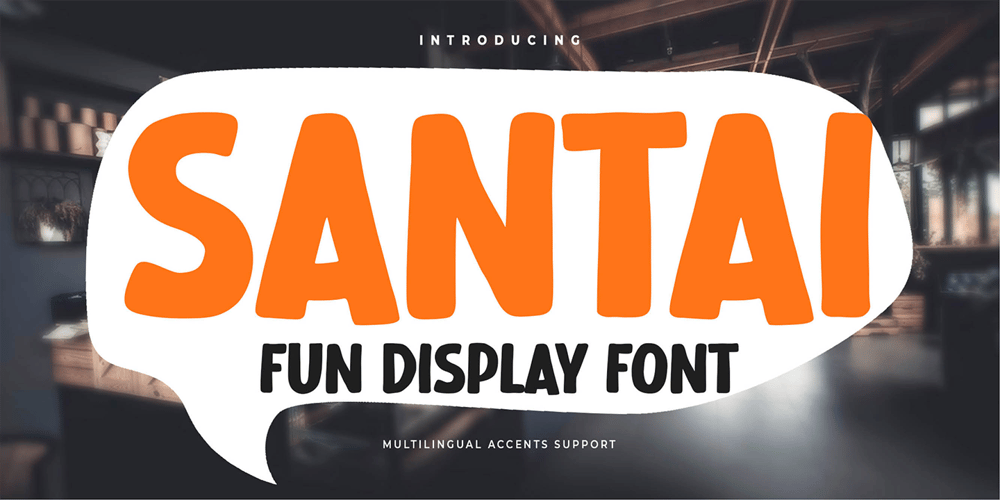
Santai
Santai font
Santai Font Family was designed by Abdul Malik Wisnu, Anang Fibriyanto and published by Gassstype. Santai contains 1 styles and family package options. Hello Everyone, introduce our new product Font SANTAI is a Fun Display Font .This is a Textured Natural Style and classy style with a clear style and dramatic movement.This font SANTAI is great for your next creative project such as logos, printed quotes, invitations, cards, product packaging, headers, Logotype, Letterhead, Poster, Design this font is great for your creative projects such as watermark on photography, stationery, wedding designs,label ,product packaging, special events or anything that need handwritting taste.That is has charming, authentic and relaxed characteristic more natural look to your text.